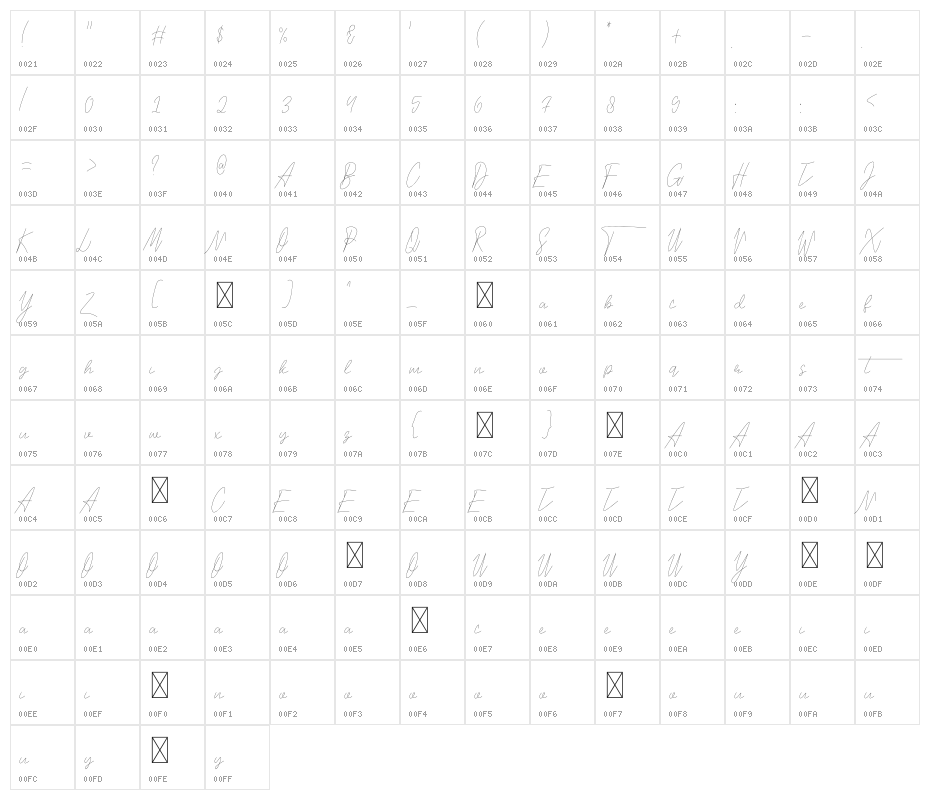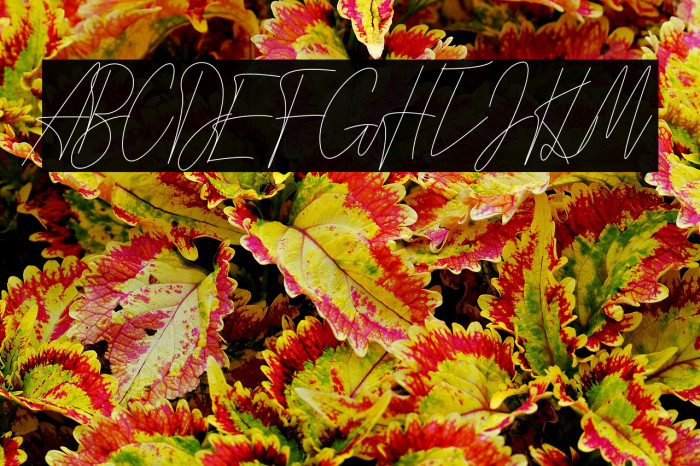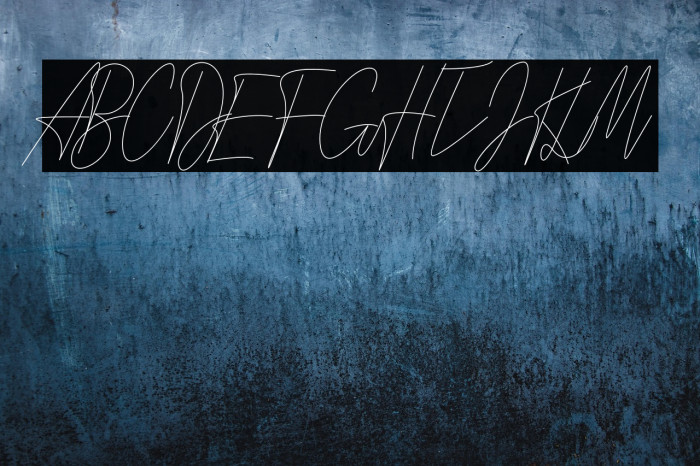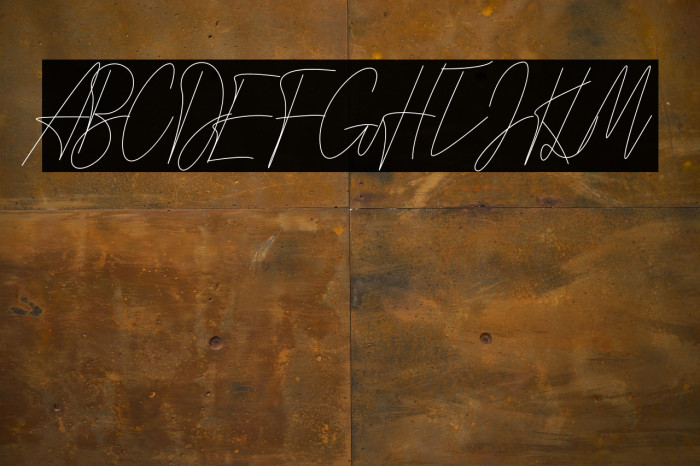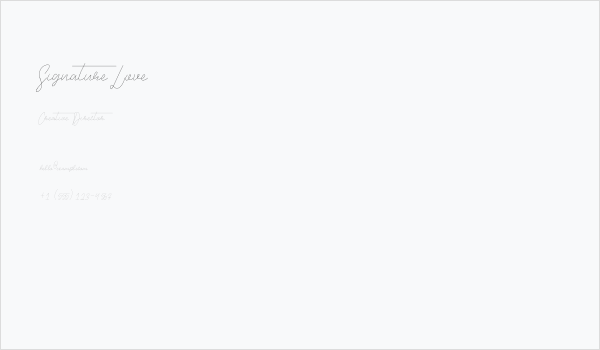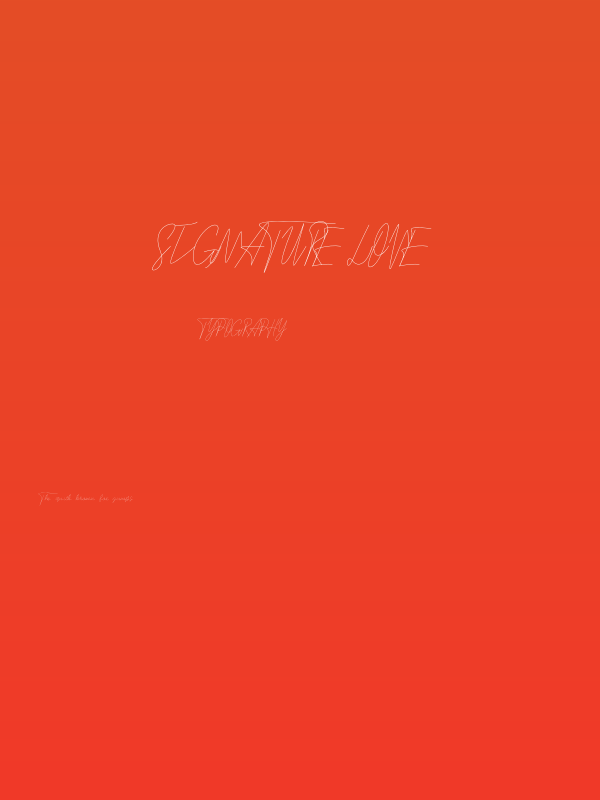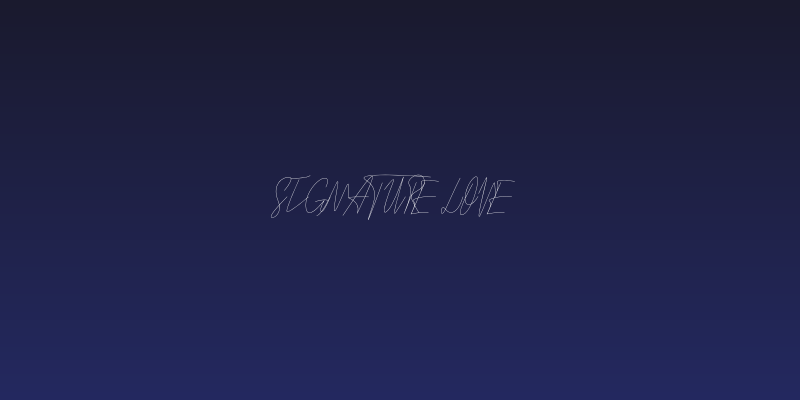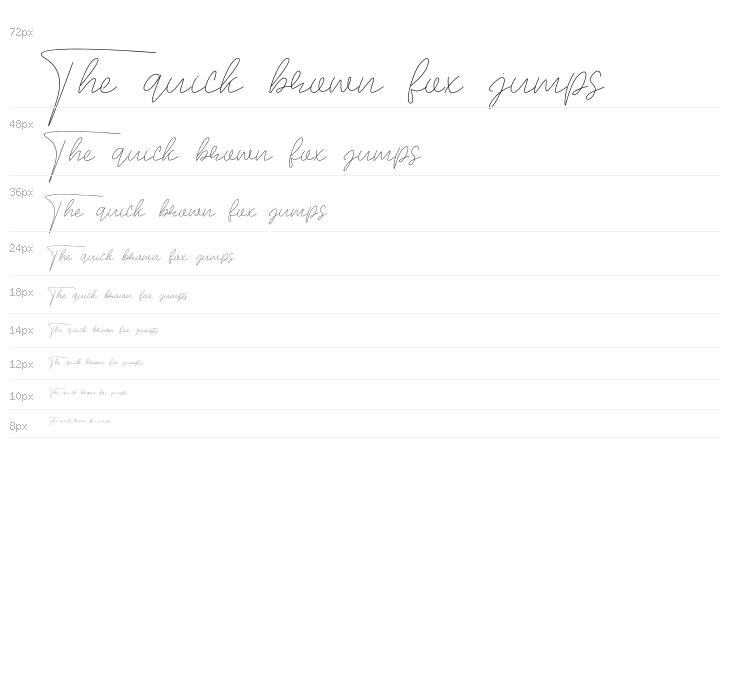
Signature Love Font
Signature Love Description
A delicate, flowing handwritten script with thin, continuous strokes and a natural, cursive appearance. The characters are loosely connected, mimicking a personal signature style with high ascenders and descenders.
| Overall Style | Decorative, Elegant, Romantic |
| Proposed Projects | Wedding invitations, personal branding, greeting cards, romantic quotes, signature logos. |